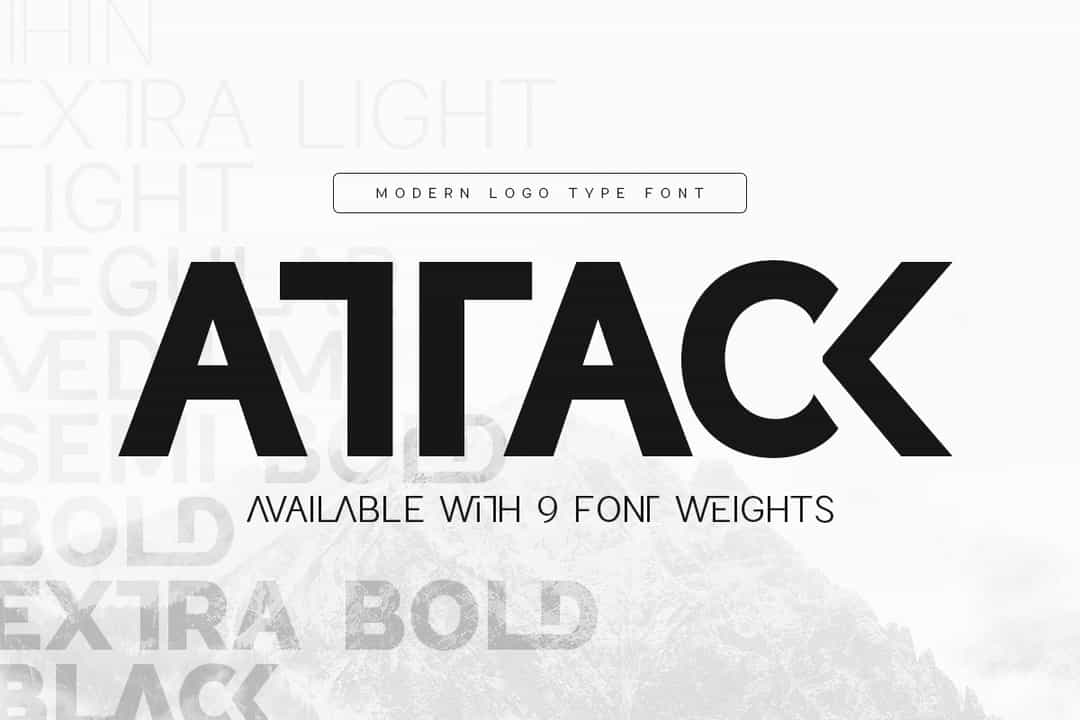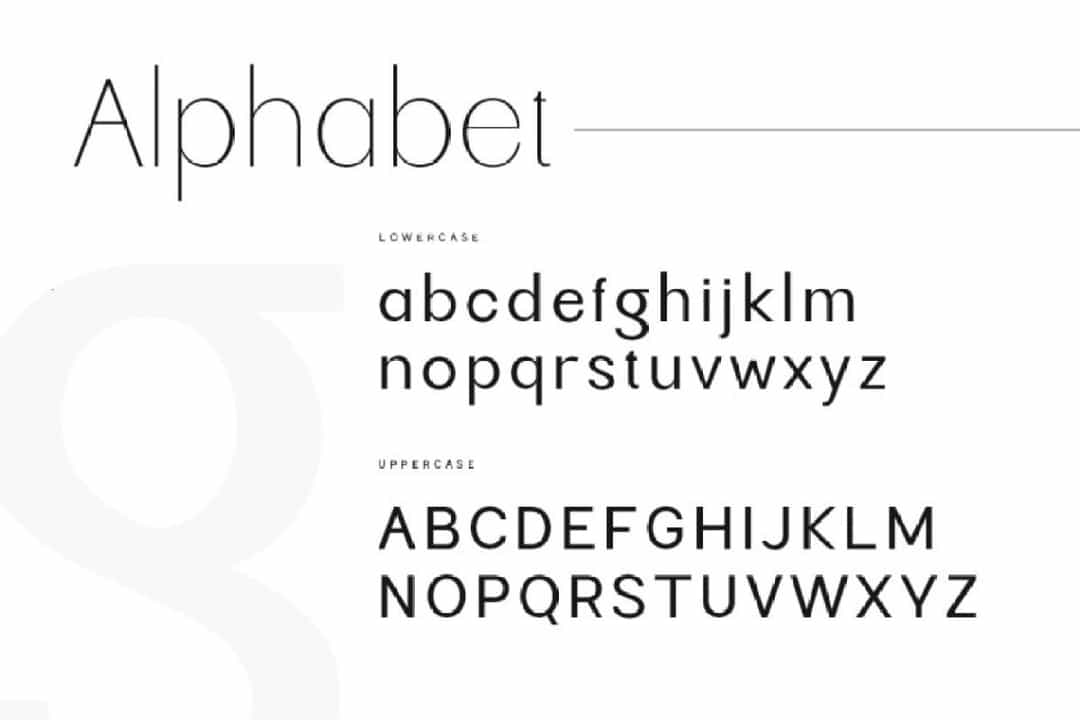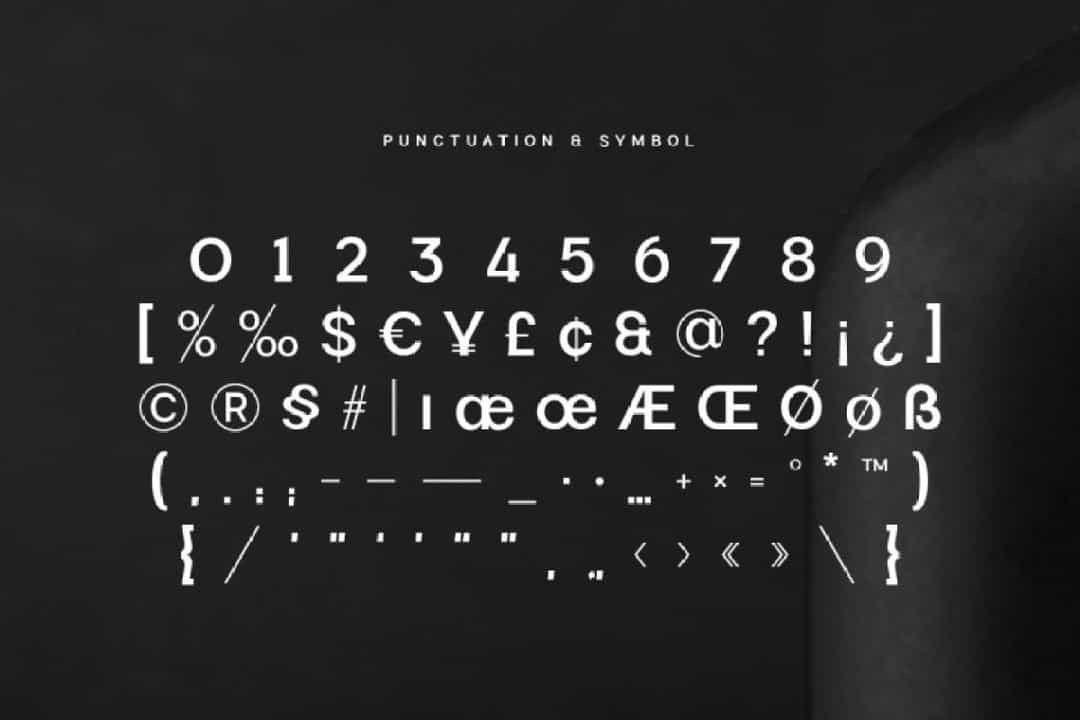
Attack is an elegant corporate logo sans serif typeface. The font is a modern font with a minimalist, unique, and iconic sans serif that you can use in different combinations to get any variations and shapes in a matter of seconds with choosing the ligatures you want to use.